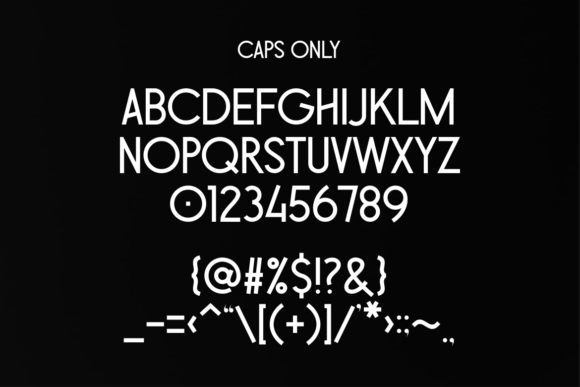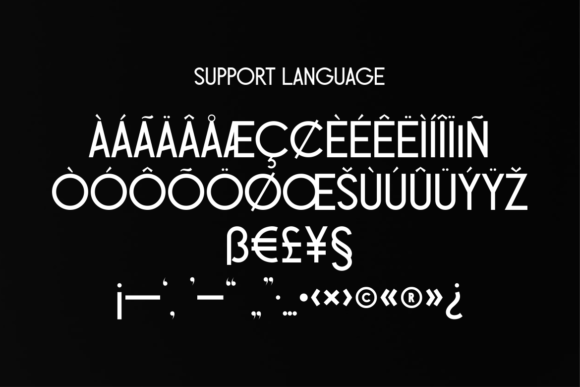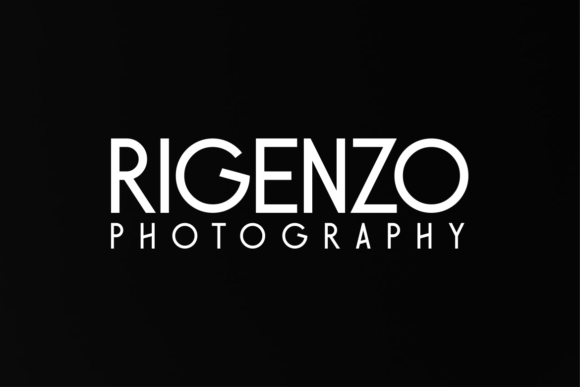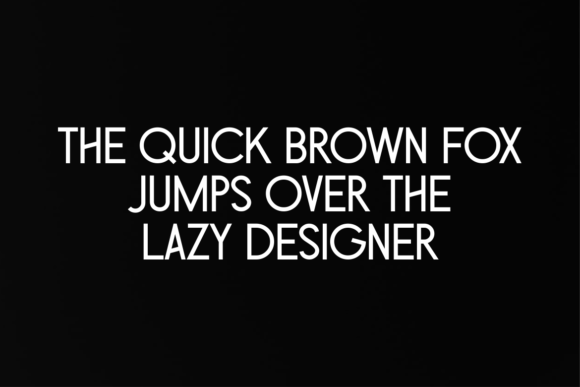
Getroka Font: The Ultimate Typeface for Modern Design
In the world of typography, fonts play a crucial role in conveying the tone and personality of a brand. For designers and crafters, finding the perfect font that combines style, strength, and versatility can be a daunting task. However, look no further than the Getroka Font, a game-changing typeface that has been making waves in the design community.
The Font Combination of Stylish and Strong
Getroka Font is a masterful blend of style and strength, making it an ideal choice for large companies and businesses looking to make a statement. Its sleek and modern design exudes confidence and sophistication, while its sturdy and robust features ensure that it can withstand the demands of various design applications.
Whether you’re working on a branding project, creating a website, or designing marketing materials, Getroka Font is the perfect choice. Its clean lines, precise curves, and balanced proportions make it highly legible, even at small font sizes.
Distributed for Large Companies
Getroka Font is specifically designed to meet the needs of large companies and corporations. Its professional and polished appearance makes it an excellent choice for businesses looking to establish a strong brand identity.
With Getroka Font, companies can create a consistent visual language across various platforms, from print materials to digital media. Its versatility and adaptability make it an excellent investment for businesses looking to elevate their brand image.
Equipped with Punctuation Marks for Several Countries
In today’s globalized market, businesses need to communicate effectively with customers from diverse linguistic and cultural backgrounds. Getroka Font understands this need and comes equipped with punctuation marks for several countries, making it a truly international typeface.
Whether you’re targeting audiences in Europe, Asia, or the Americas, Getroka Font has got you covered. Its extensive character set ensures that you can create multilingual designs that resonate with your target audience.
Can be Modified According to Needs
One of the standout features of Getroka Font is its customizability. Designers and crafters can modify the font to suit their specific needs, whether it’s adjusting the font size, line spacing, or kerning.
This flexibility makes Getroka Font an excellent choice for designers who want to push the boundaries of typography and create unique visual experiences. With Getroka Font, the possibilities are endless, and the creative freedom is unparalleled.
Getroka Font offers a range of benefits for designers and crafters, including:
• Improved brand identity: With Getroka Font, designers can create a consistent visual language that reflects a brand’s values and personality.
• Increased legibility: Getroka Font’s clean design and balanced proportions make it highly legible, even at small font sizes.
• Creative freedom: Getroka Font’s customizability allows designers to experiment with different typography styles and create unique visual experiences.
• Time-saving: With Getroka Font’s extensive character set and versatile design, designers can save time and effort in creating multilingual designs.
Getroka Font is a game-changing typeface that offers a perfect blend of style, strength, and versatility. Its professional and polished appearance makes it an excellent choice for large companies and businesses, while its customizability and extensive character set make it a favorite among designers and crafters.